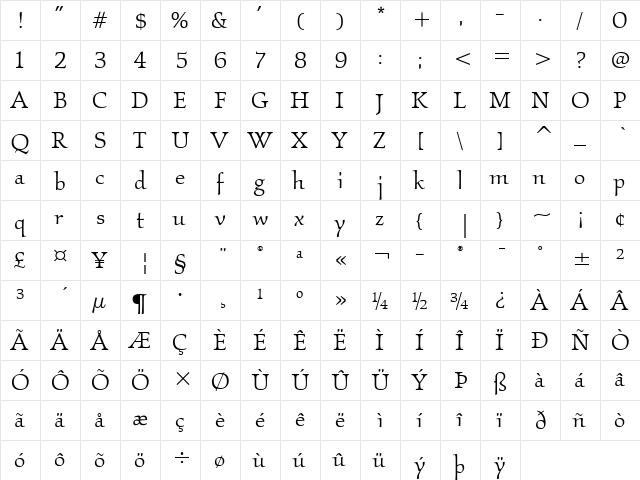
Kallos ITC Book
Design Context for Kallos ITC Typeface
Kallos ITC offers clean, dependable letterforms without strong stylistic allegiance, making it a practical choice for designers who need flexibility.
Pro Tip: Pair Kallos ITC with a font of contrasting weight or personality to build a more expressive typographic hierarchy.